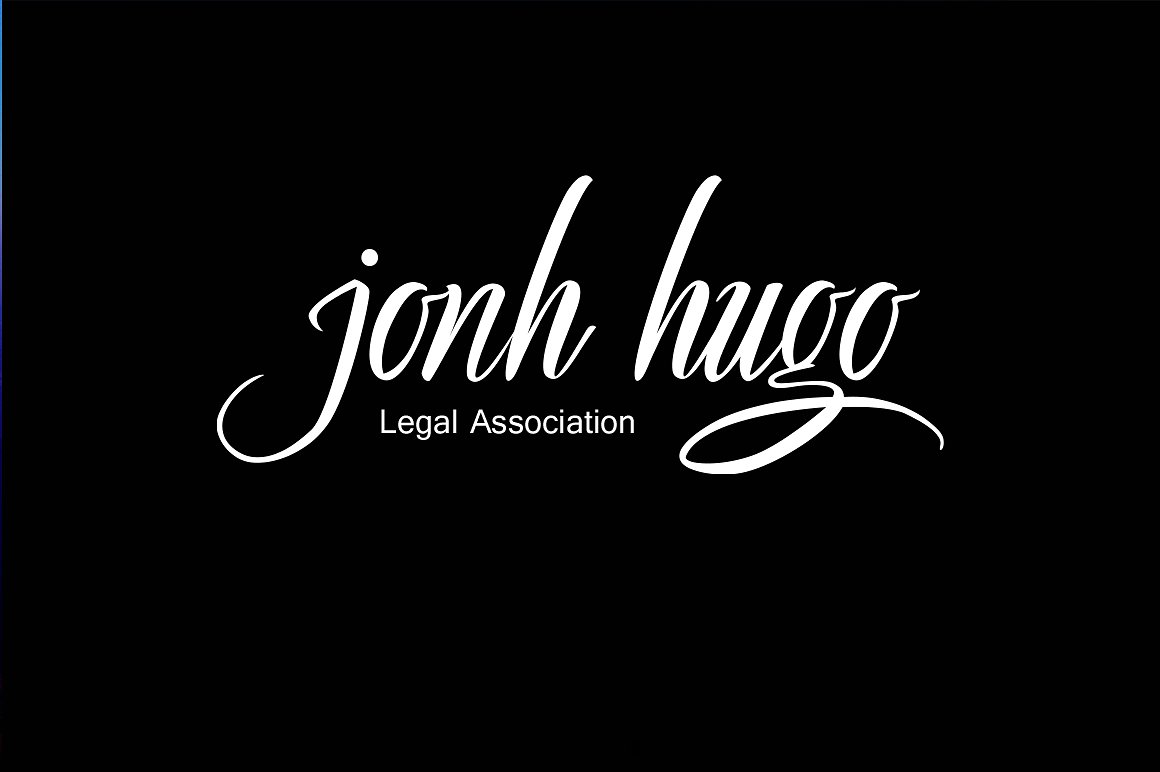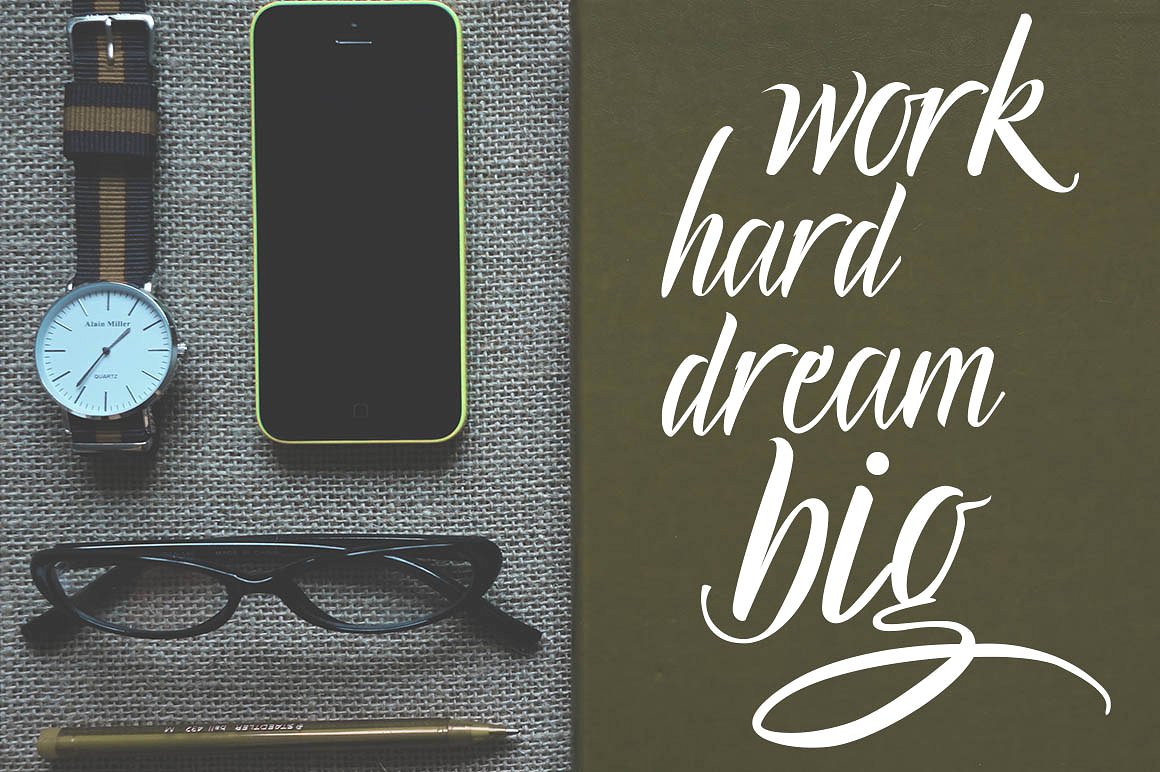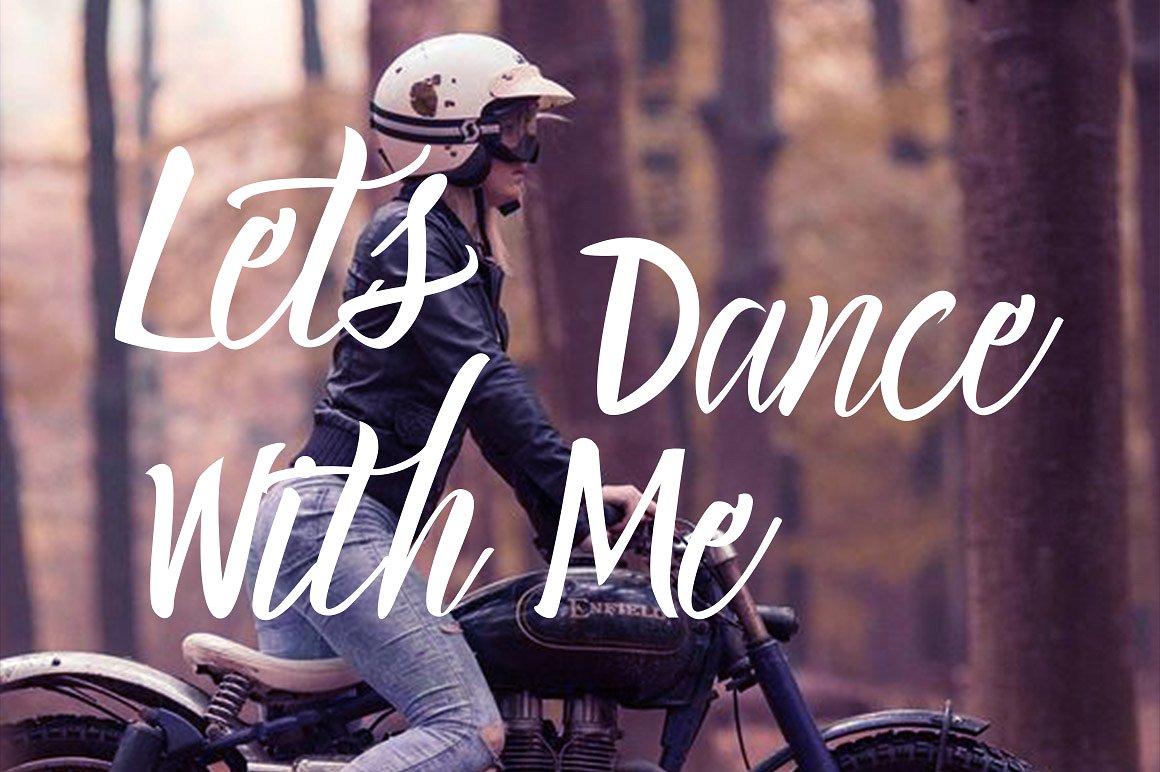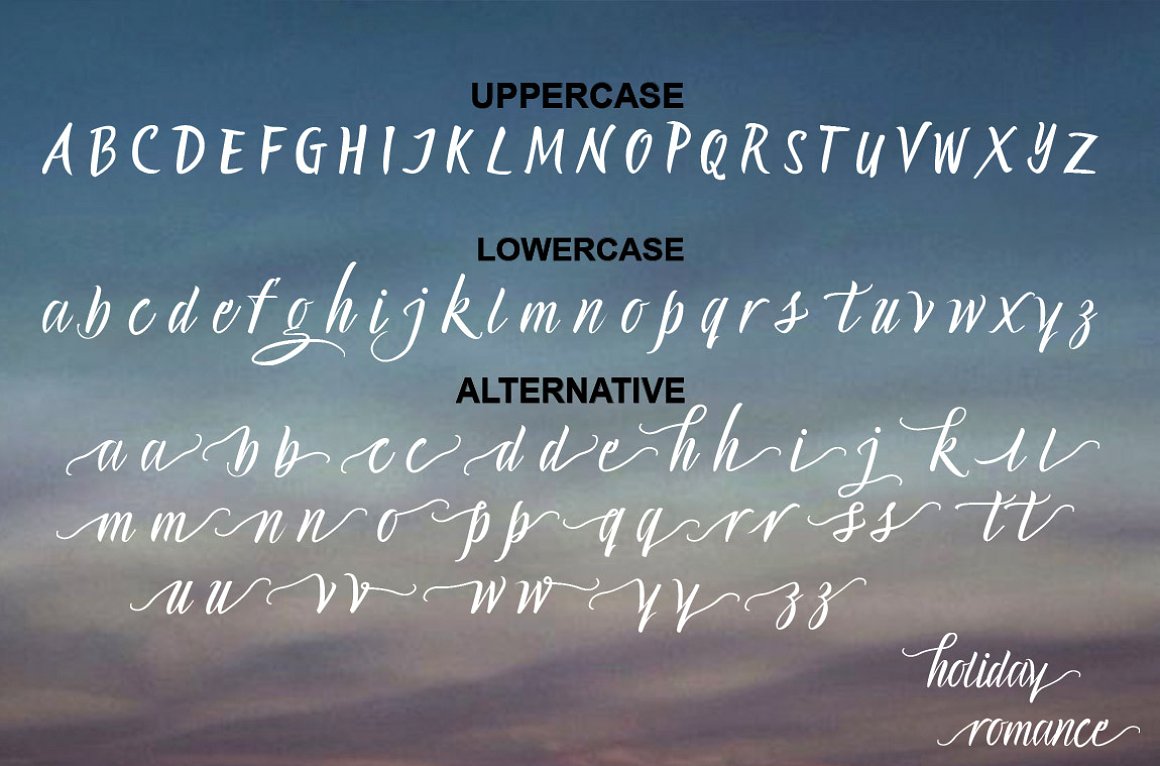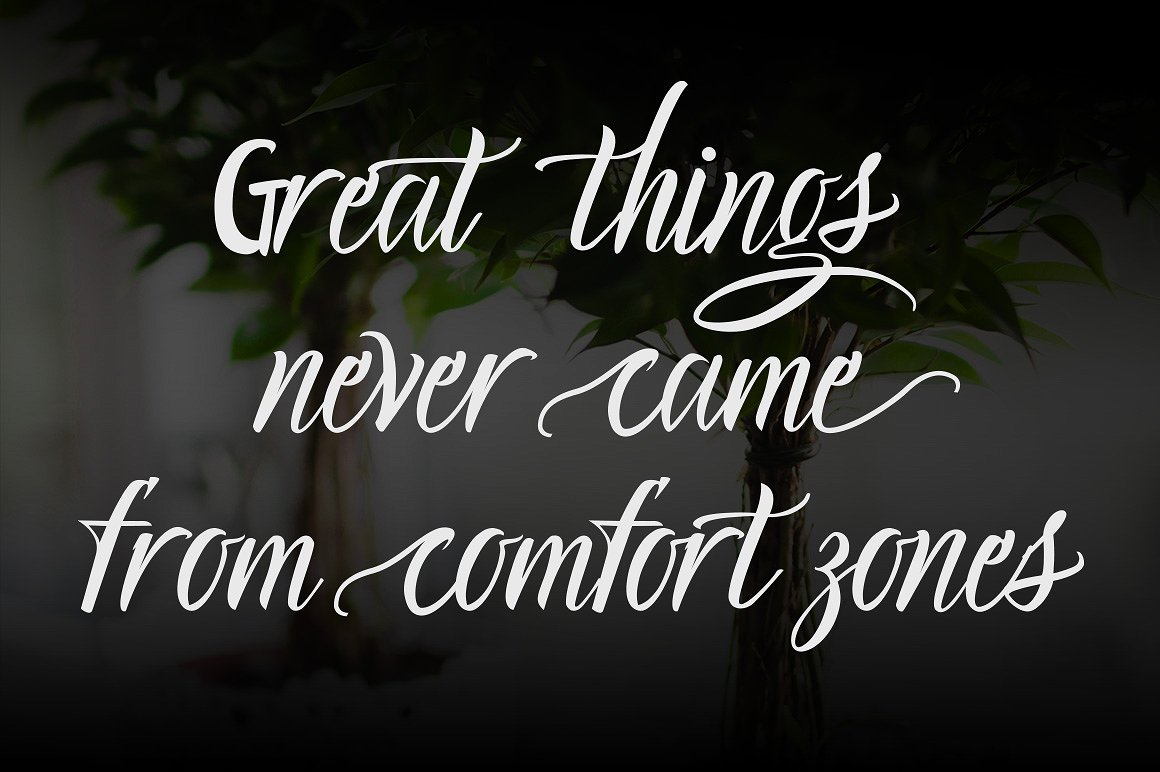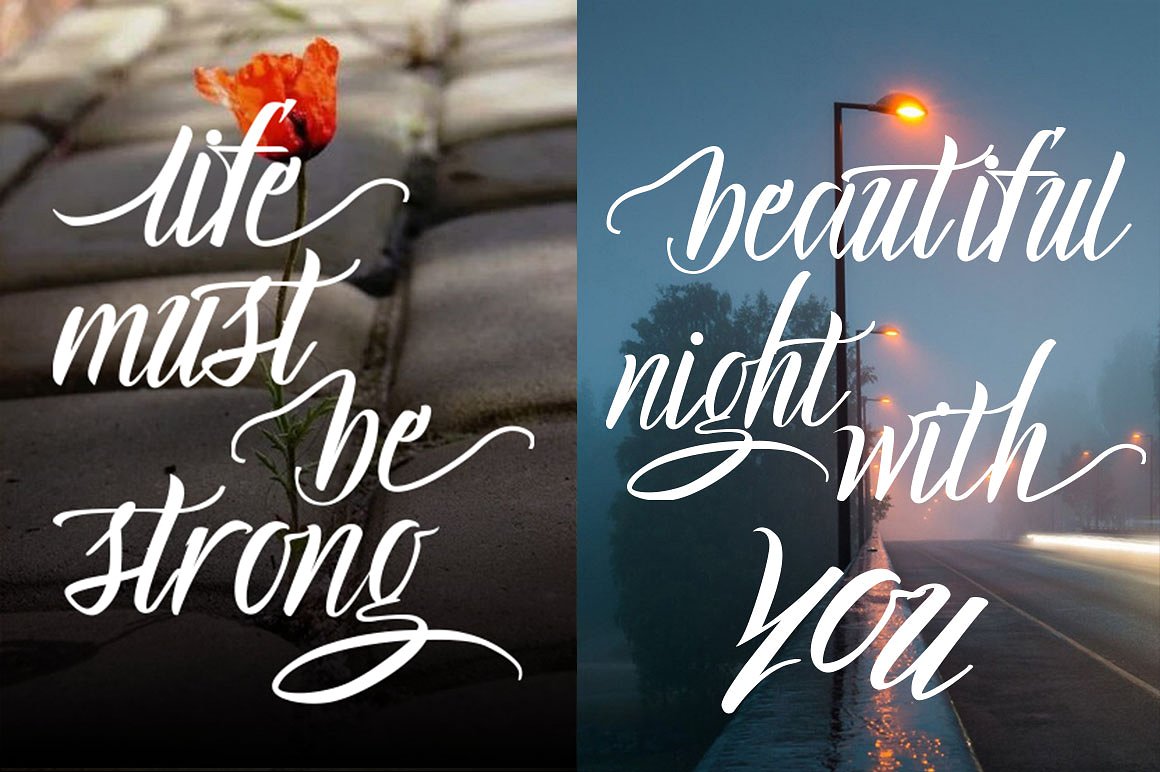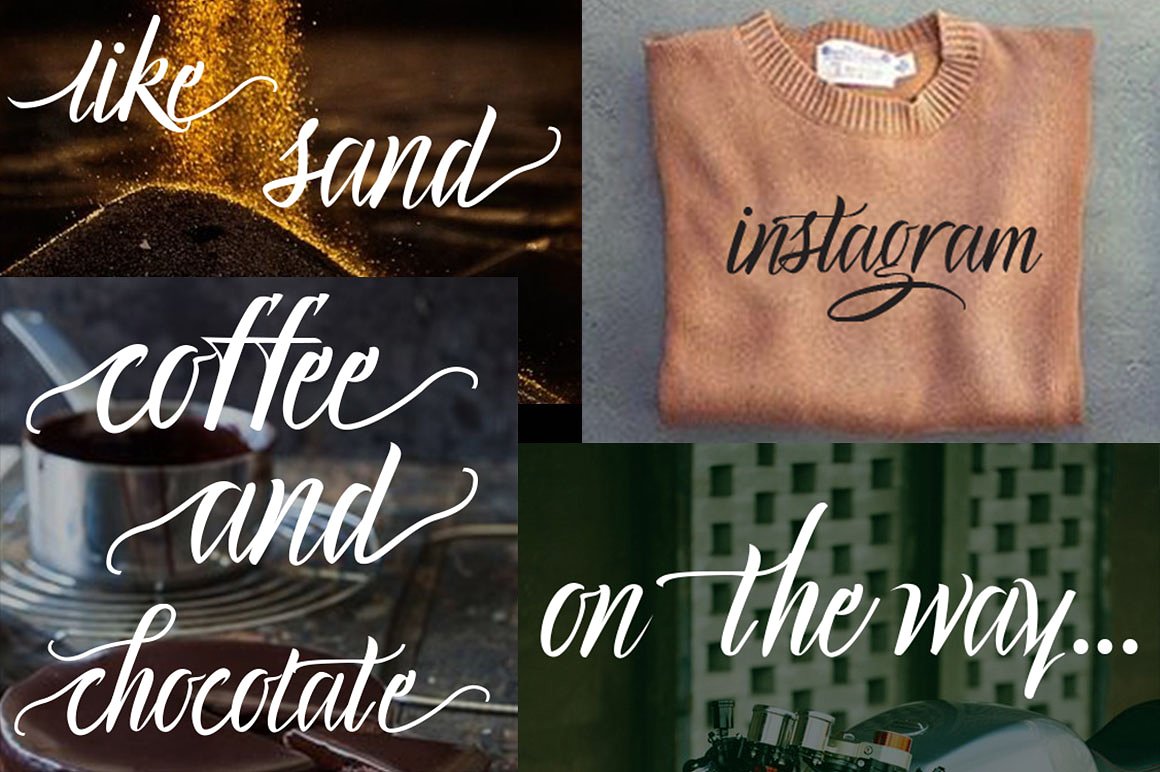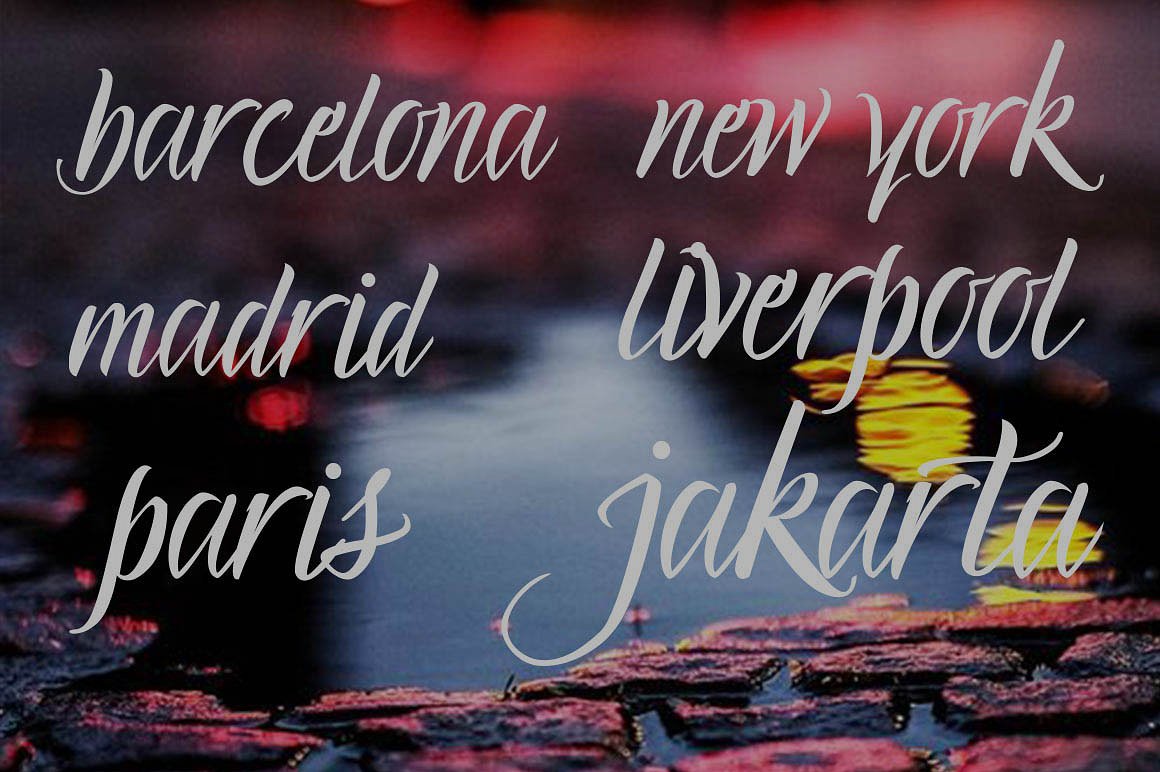
Holiday Romance Font
About Holiday Romance Font
Holiday Romance is a handwritten script font, packed with stunning alternates.
It’s suitable for logo’s, crafts & corporate design, and much more!